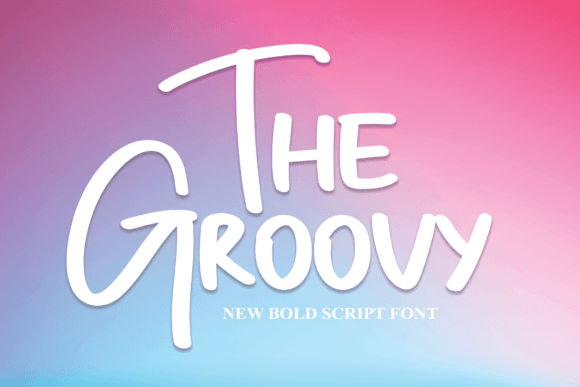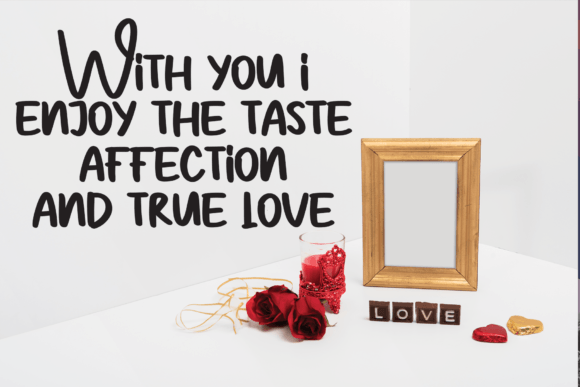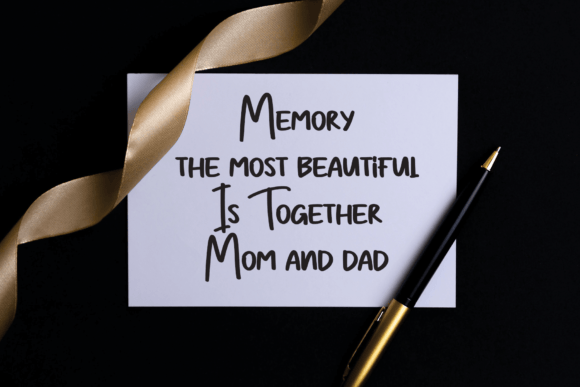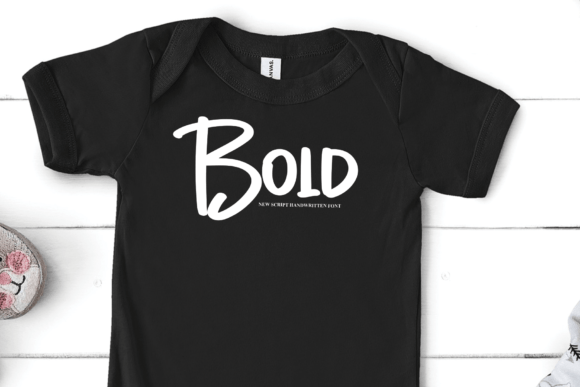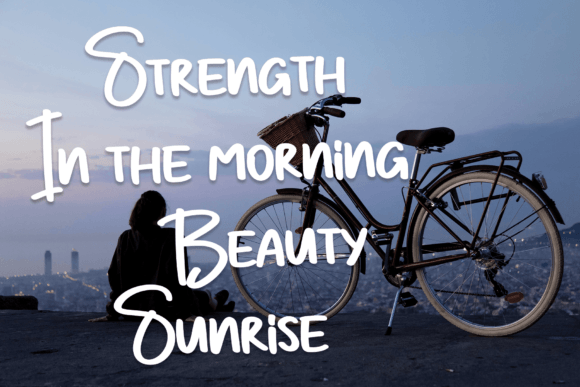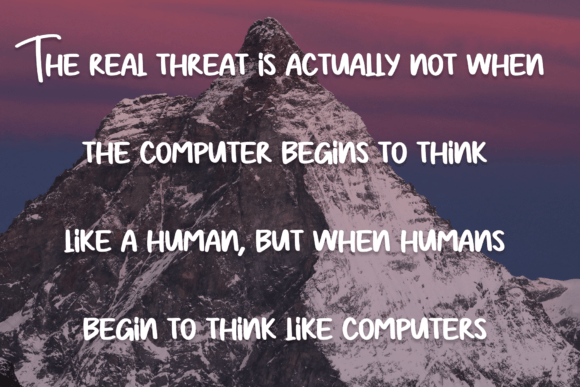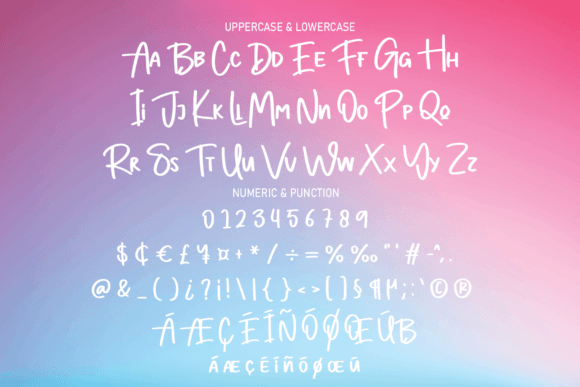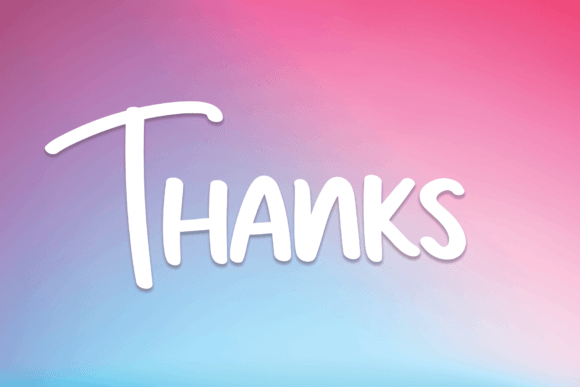
The Groovy Font
About The Groovy Font
“The Groovy” is a bold and expressive font, characterized by its thick and solid lines that ensure easy readability. The font strikes a balanced fusion of playfulness and professionalism, making it suitable for a wide range of design projects.
The substantial and well-defined lines of “The Groovy” contribute to its legibility, ensuring that the text is clear and easily comprehensible. This makes it a versatile choice for various design applications, where a bold and expressive typeface is desired without overwhelming the reader.
The playfulness inherent in “The Groovy” adds a touch of personality to the font, making it suitable for creative and engaging projects. Its conservative bends and overall design make it visually appealing without being overly extravagant, striking a harmonious balance.
Whether you’re working on posters, branding materials, headlines, or any other design project, “The Groovy” invites you to explore its bold and expressive nature. Its versatility lends itself well to both professional and creative contexts, making it a font that can adapt to different design needs while maintaining a sense of style and readability.